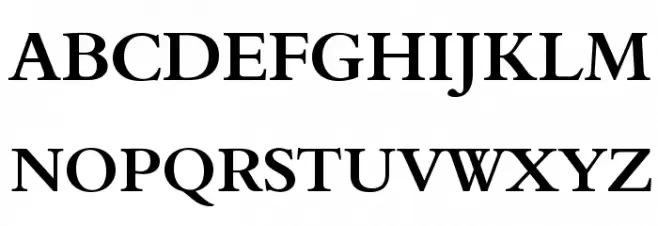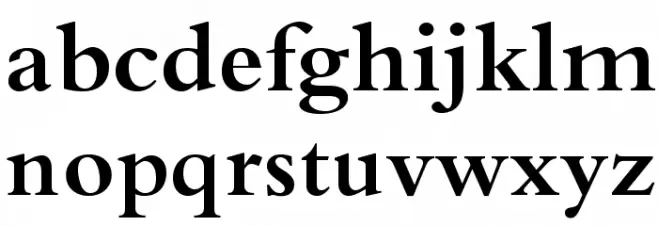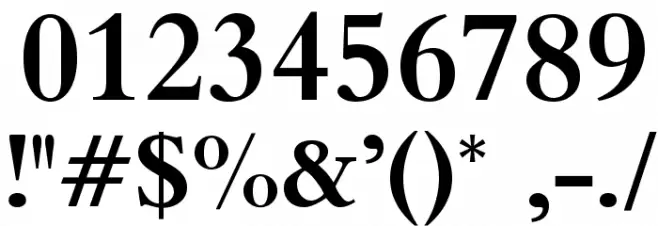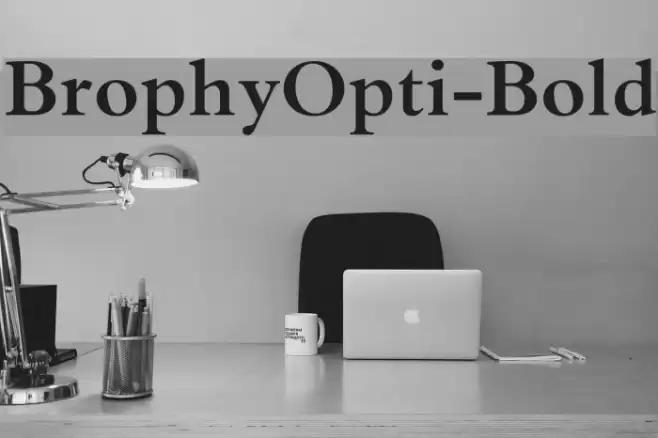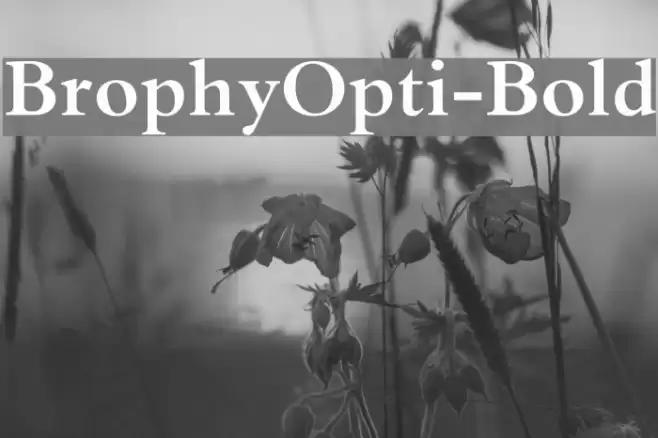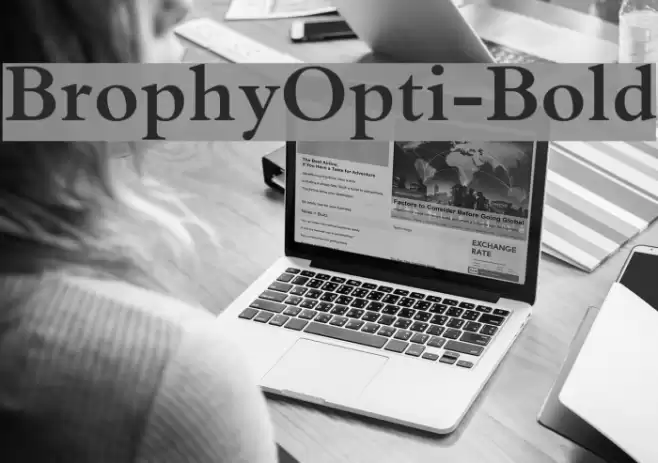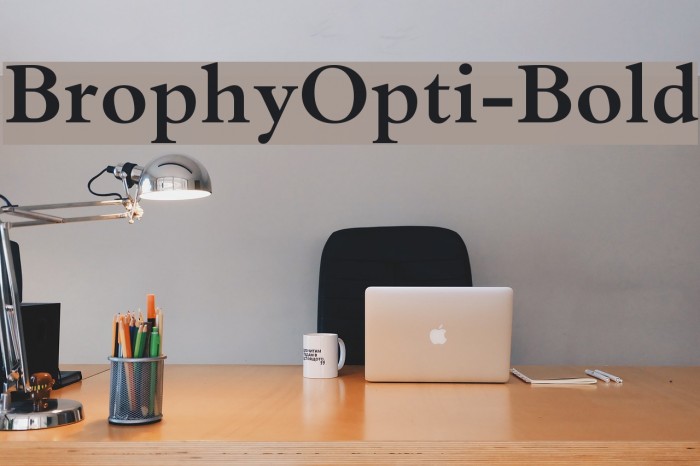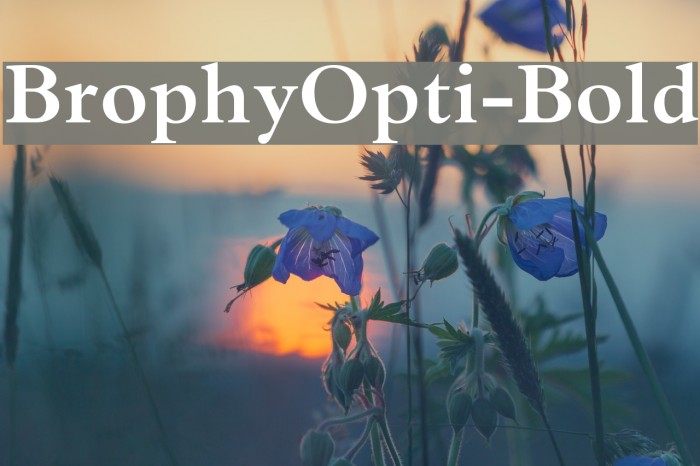
BrophyOpti-Bold
This font features a classic serif design with bold, strong strokes that convey a sense of authority and tradition. The uppercase letters are well-proportioned with distinct serifs, providing a formal and elegant appearance. The lowercase letters maintain a consistent style, with smooth curves and a balanced weight that enhances readability. The numerals are clear and robust, making them suitable for various applications. Special characters are thoughtfully designed, ensuring they integrate seamlessly with the rest of the typeface. Overall, this font exudes a timeless quality, making it versatile for both print and digital media.
A bold, classic serif font with strong strokes and elegant serifs.
- Proposed Projects: Ideal for book covers, formal invitations, branding, and editorial design.
- Category: Serif
- Contrast: High
- Overall Style: Classic